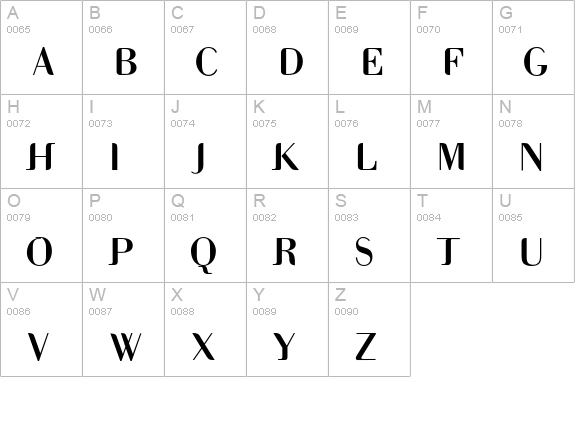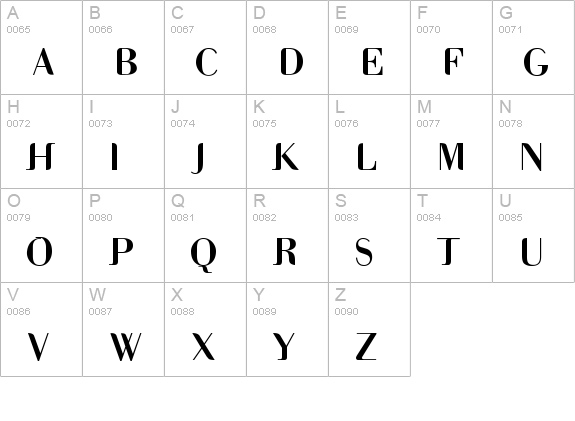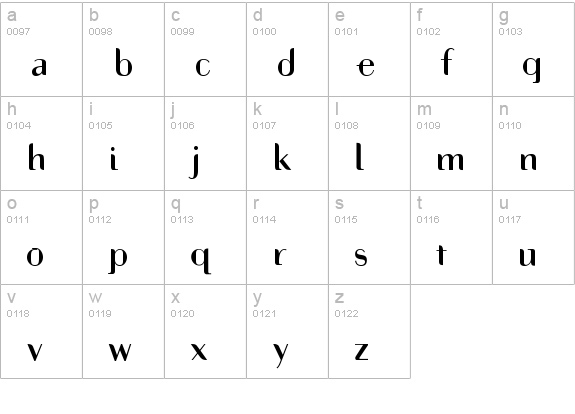
Zwigaformal Font Details
Zwigaformal is an elegant and sophisticated font that exudes a sense of class and professionalism. Its refined design features sharp angles and clean lines, making it perfect for creating stunning visual content. The versatility of Zwigaformal allows it to be used in a wide range of projects, from branding and advertising to invitations and editorial design. The best part about Zwigaformal is that it is completely free to download. You can get your hands on this exquisite font at FontsMarket.com without spending a single penny. Whether you're a designer looking to elevate your projects or an individual looking for a stylish font for personal use, Zwigaformal is the perfect choice. Download it today and add a touch of sophistication to your designs!